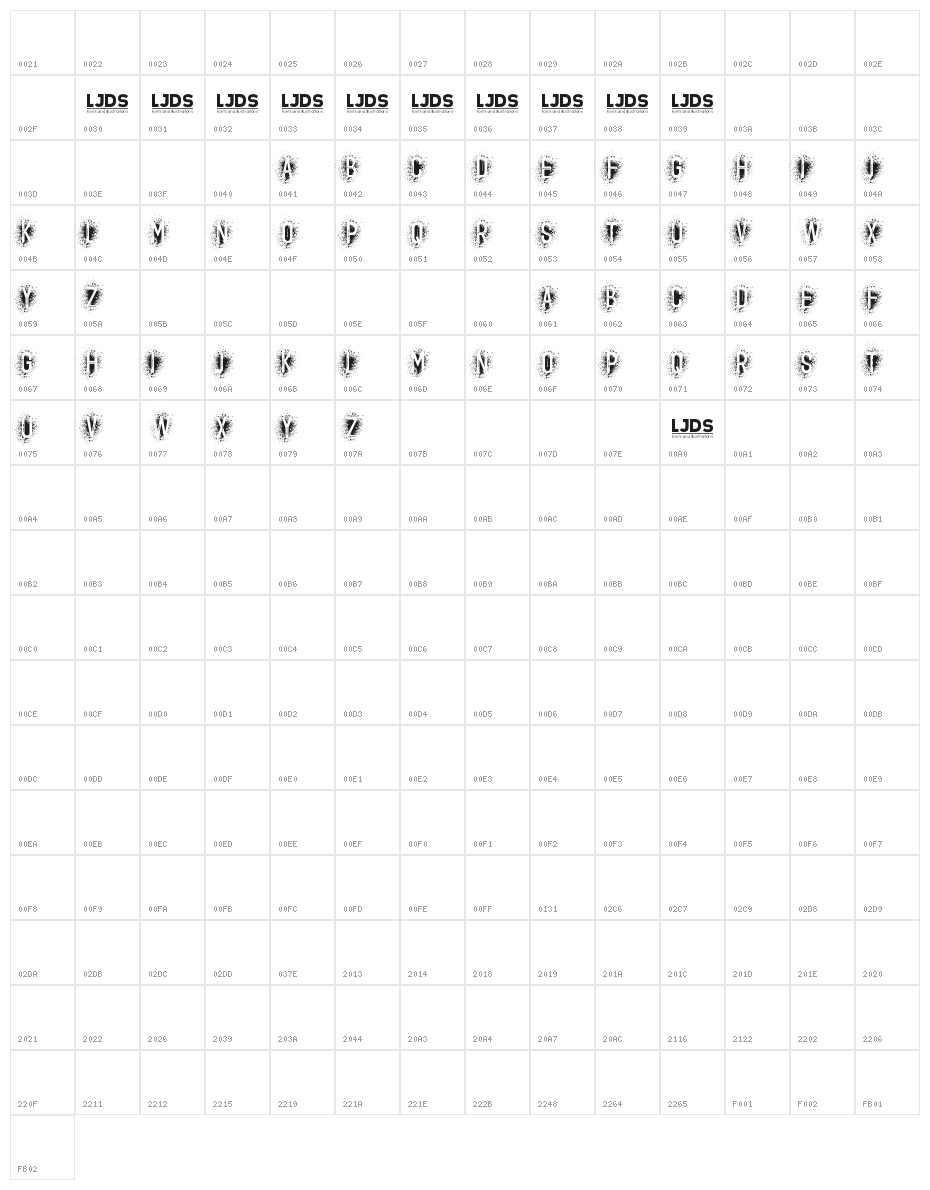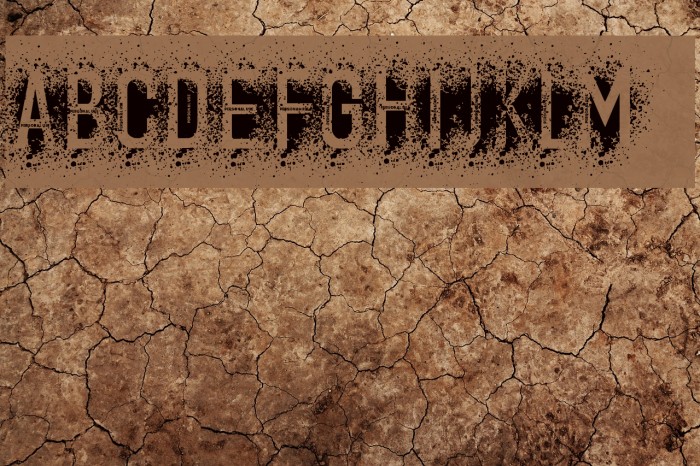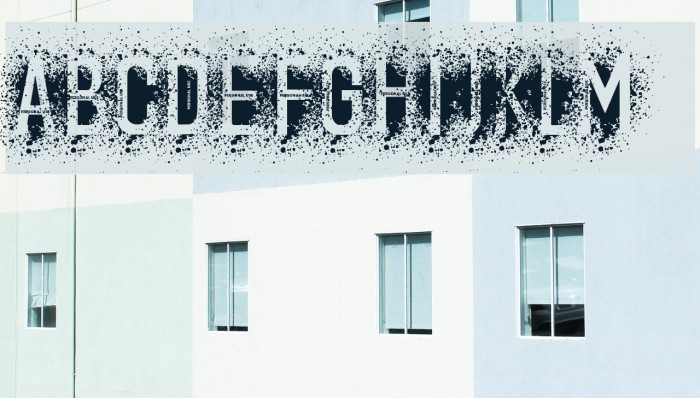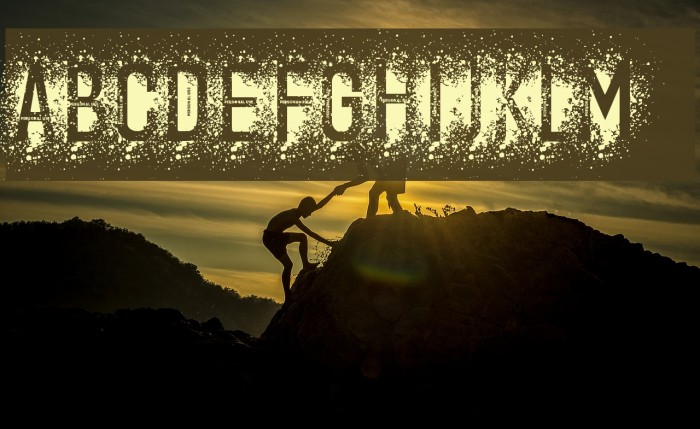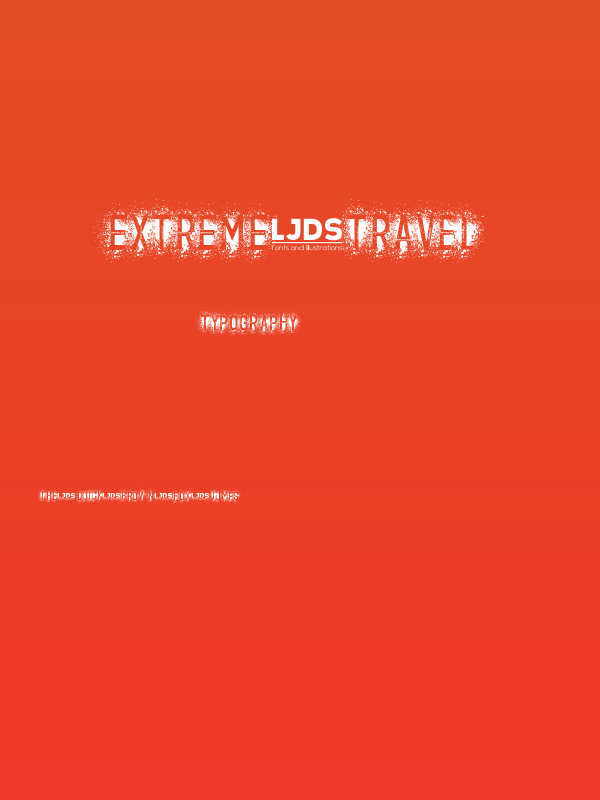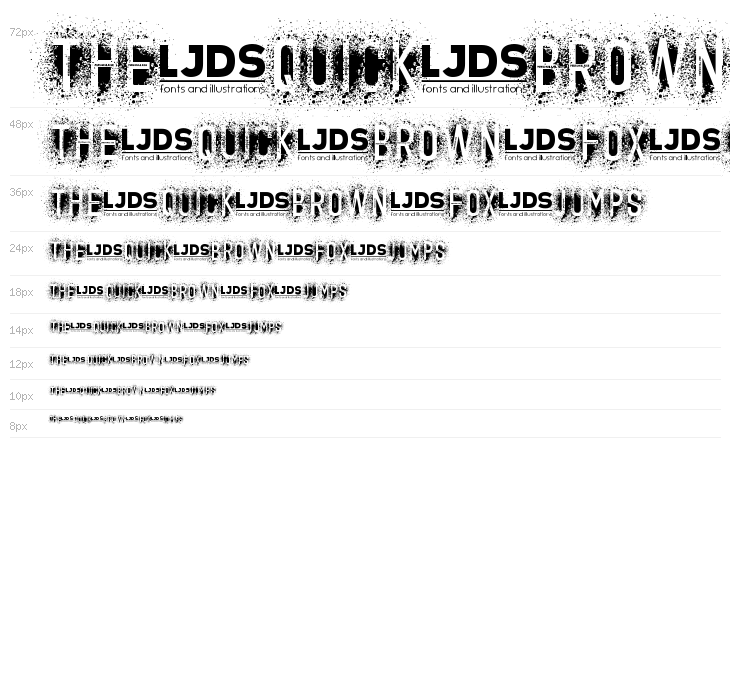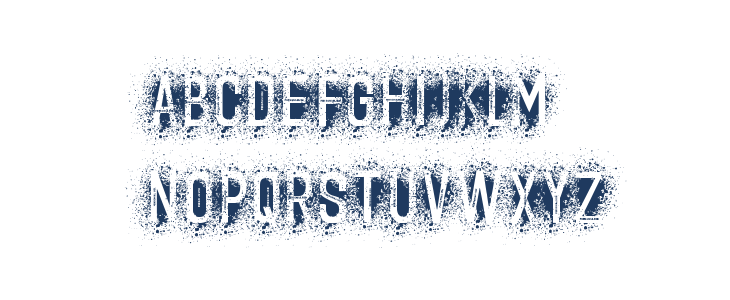
Extreme travel Font
Extreme travel Description
This font features a bold, distressed style with a splatter effect that gives it a rugged, edgy appearance. The uppercase letters are heavily textured, creating a sense of movement and chaos. The design is reminiscent of graffiti or street art, making it ideal for projects that require a raw, urban aesthetic. The characters are well-defined despite the distressed effect, ensuring readability while maintaining a unique visual impact. This font is perfect for making a statement in designs that need to convey energy and dynamism.
| Overall Style | Urban, Edgy, Distressed |
| Proposed Projects | Posters, album covers, streetwear branding, skateboarding events, and urban-themed marketing materials. |